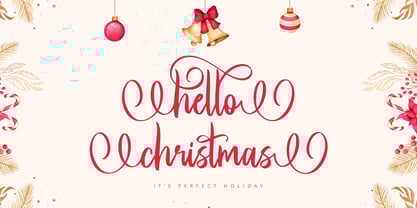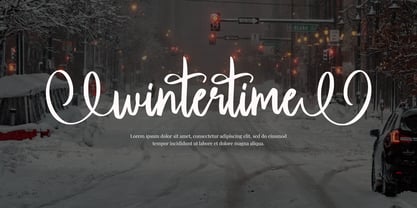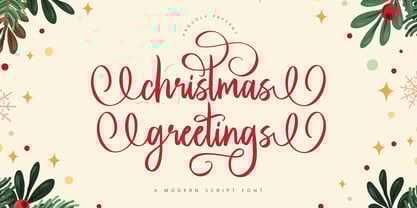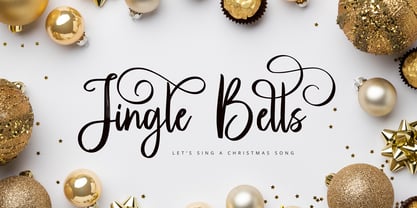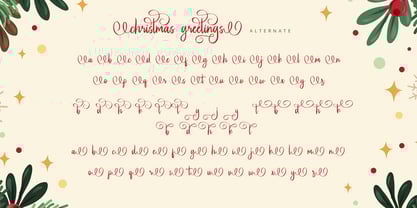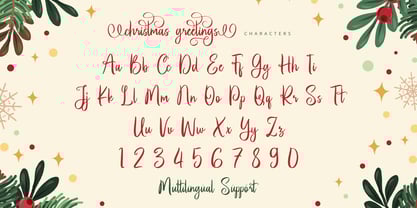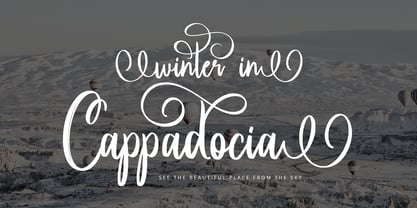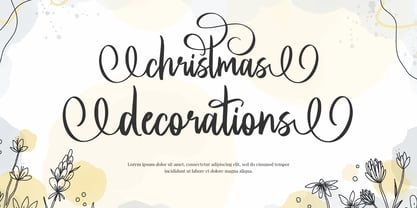
Christmas Greetings
by Alpaprana
The Christmas Greetings Font Family was designed by Nadia Salsabila and published by Alpaprana. Christmas Greetings contains 1 styles. More about this family
Christmas Greetings is a modern script font with elegant and unique style. It will be perfectly used for Branding, Logo Design, Lettering, Logotype, Clothing, Poster, magazine, packaging, posters, shopping bags, t-shirts, book covers, photography, special events and other design project.
Designers: Nadia Salsabila
Foundry: Alpaprana